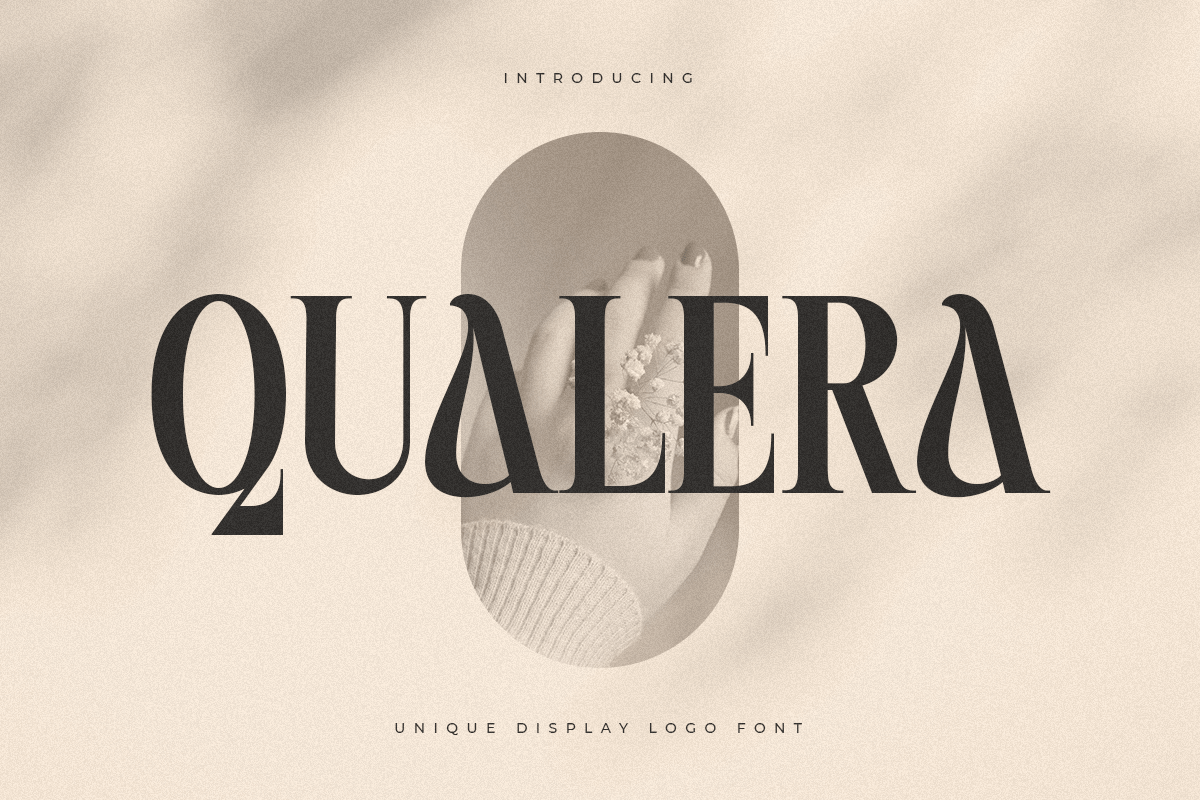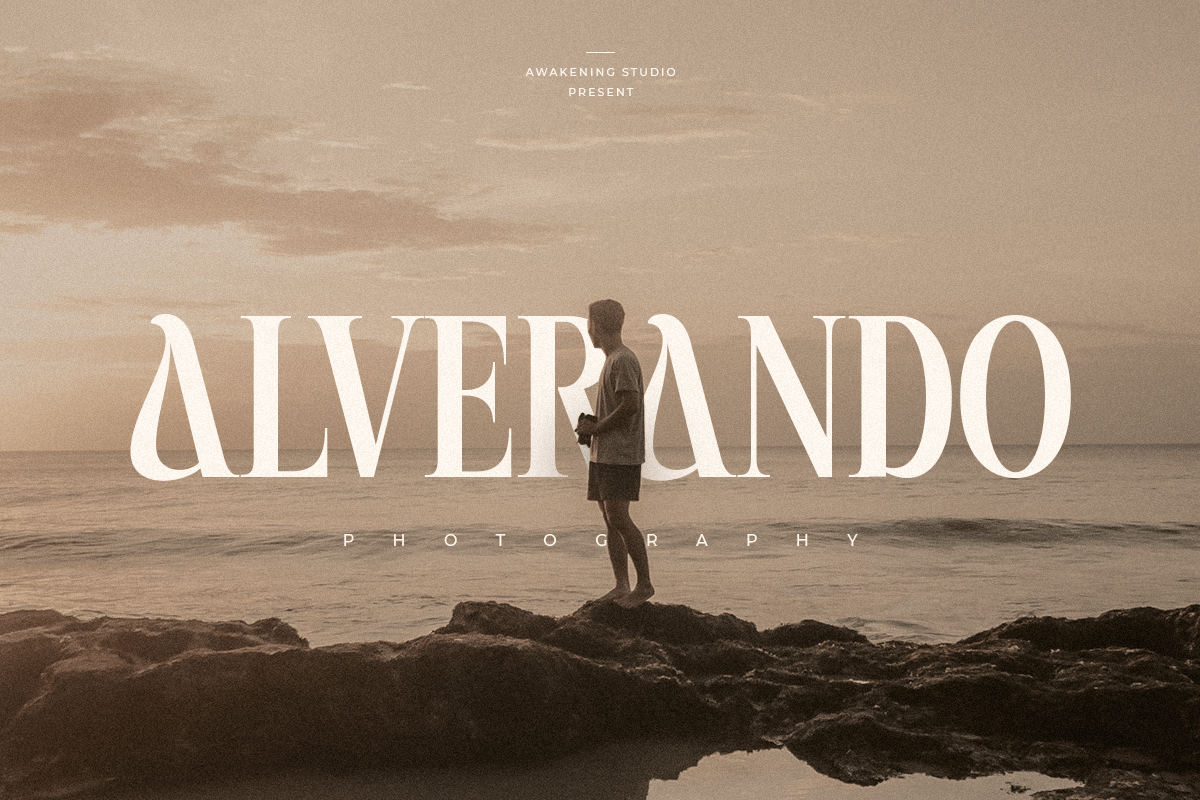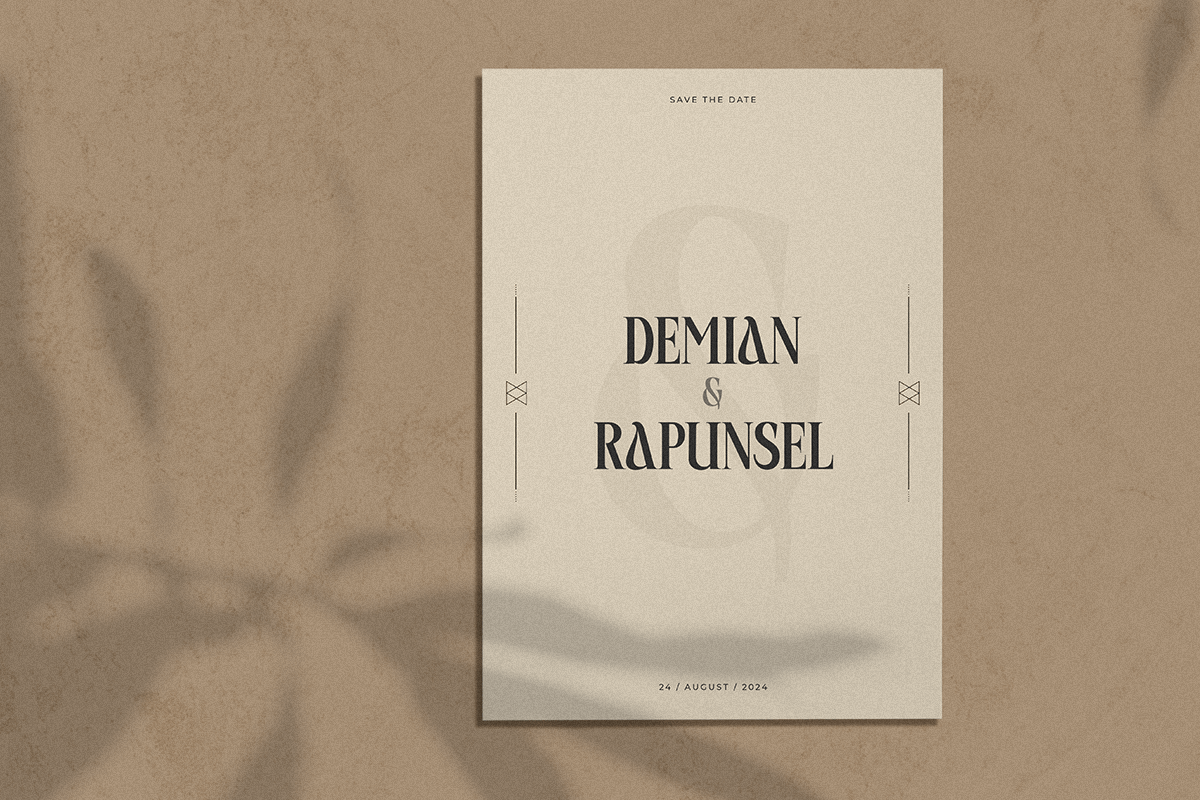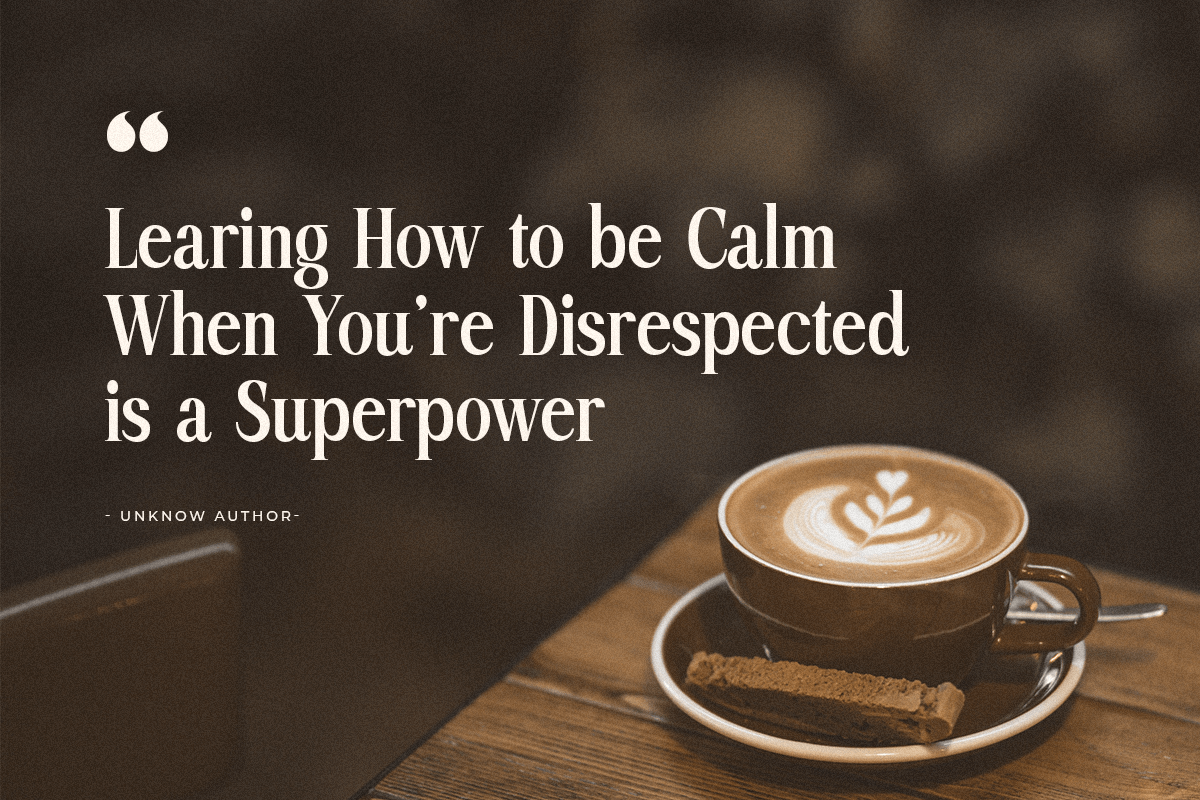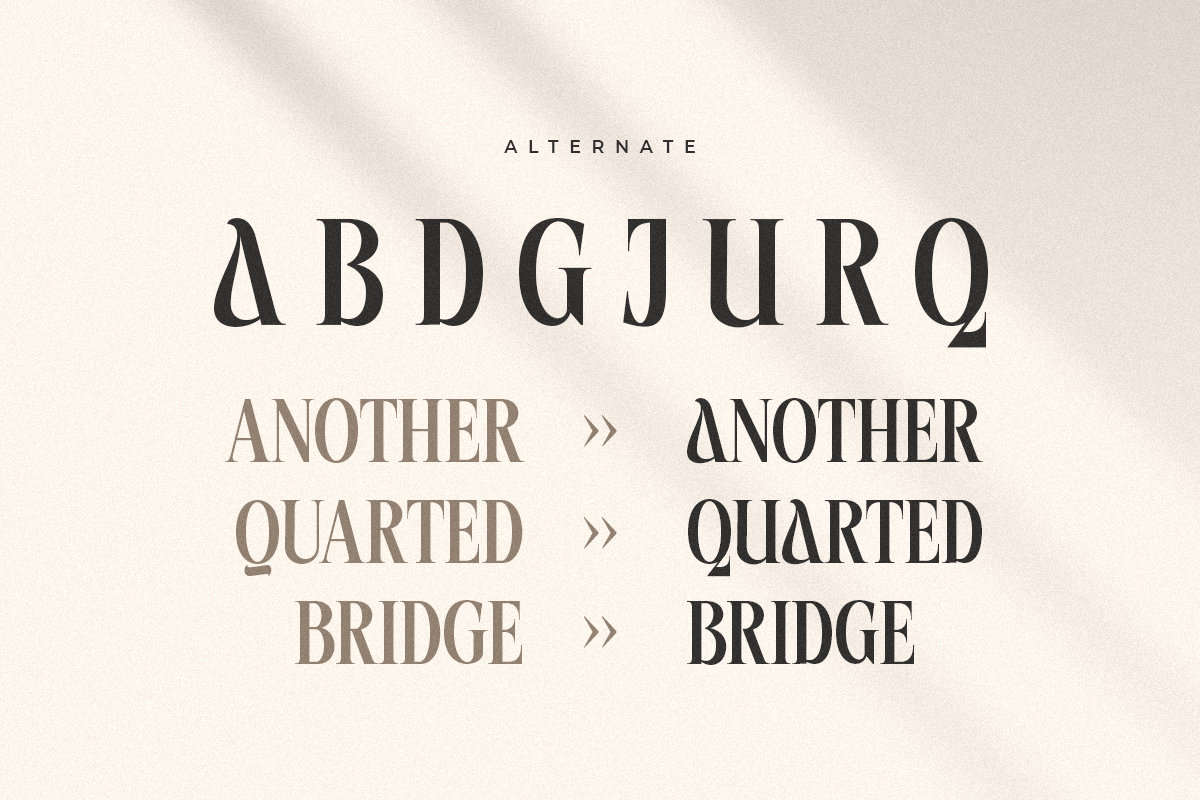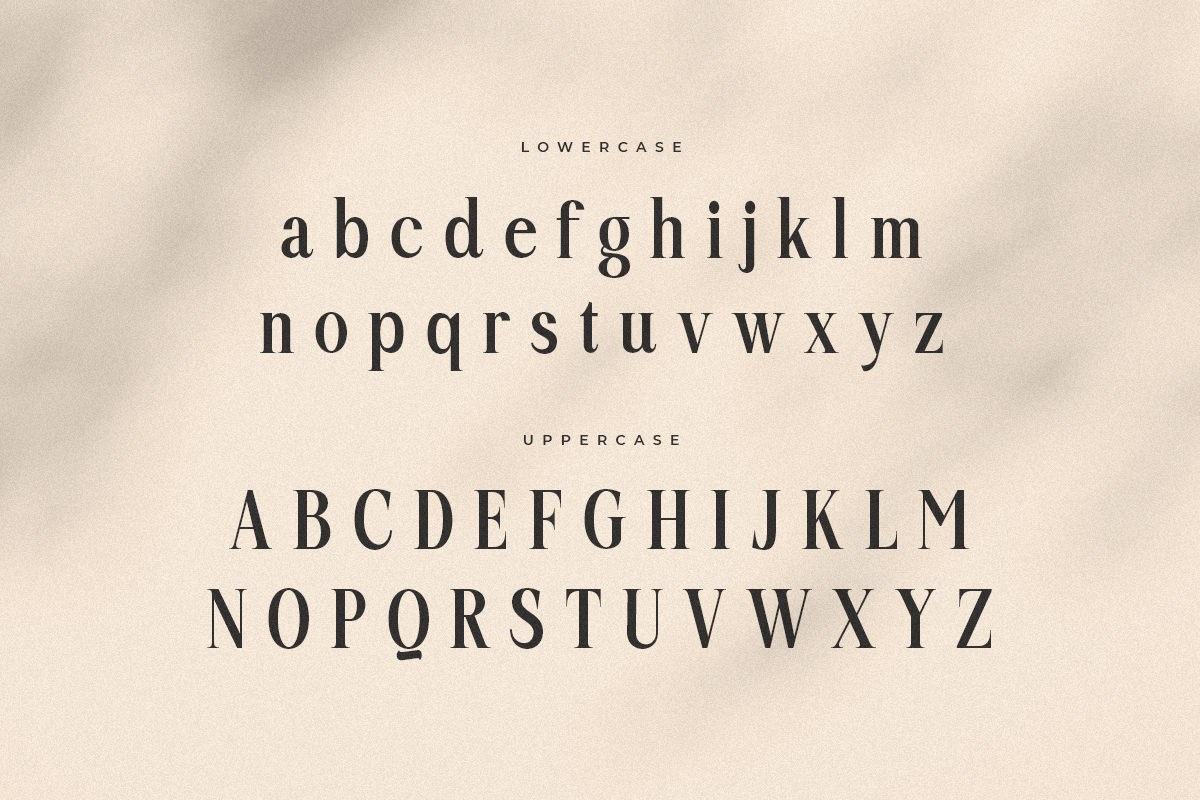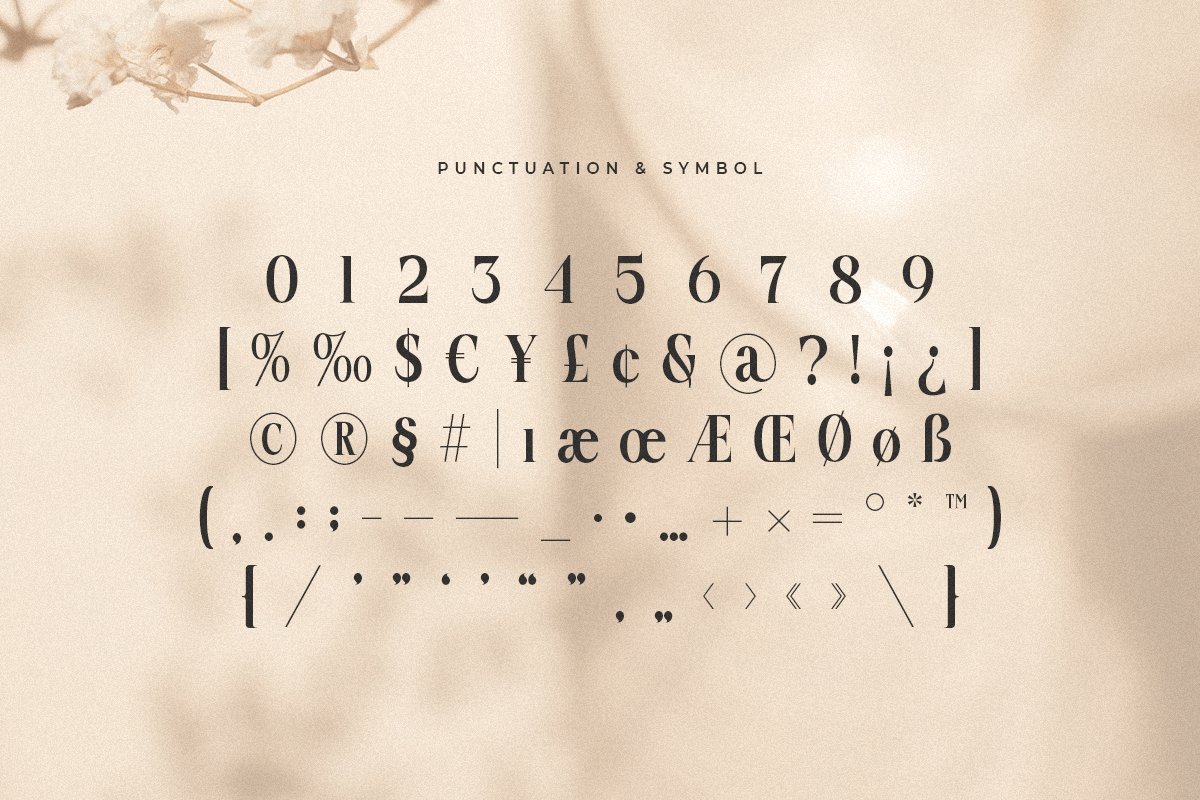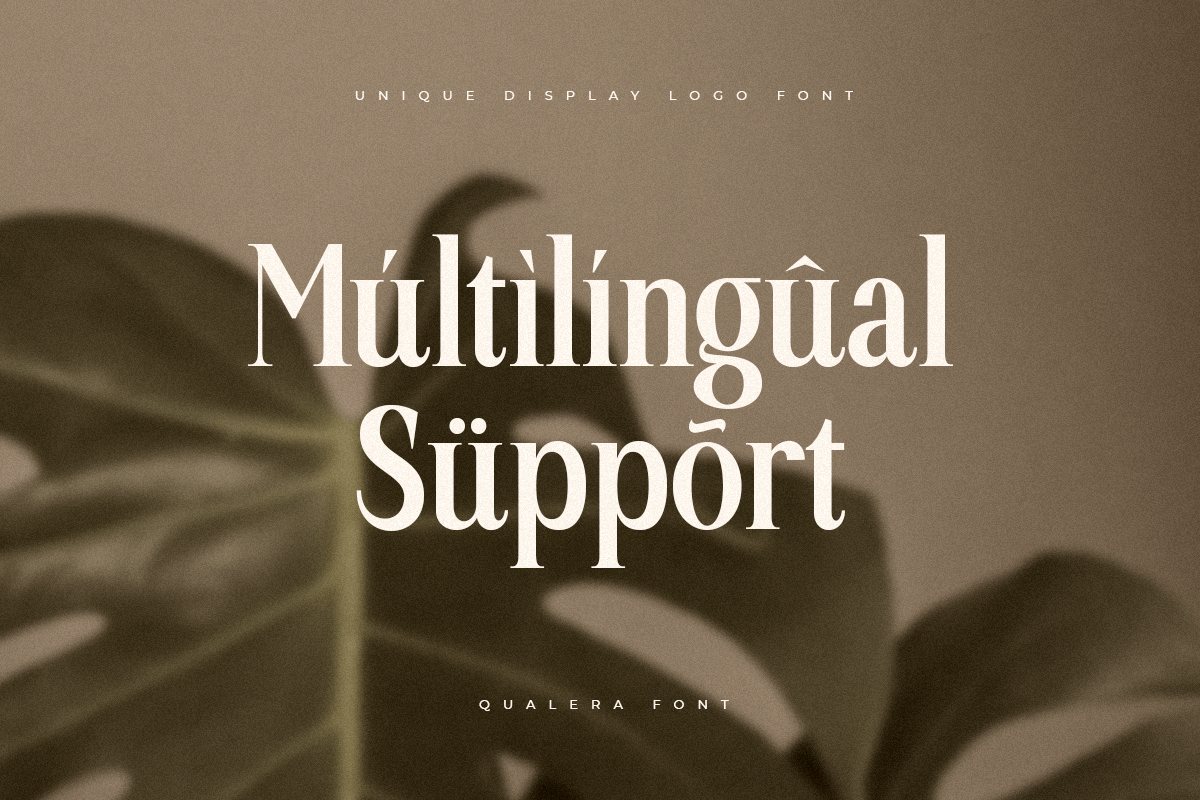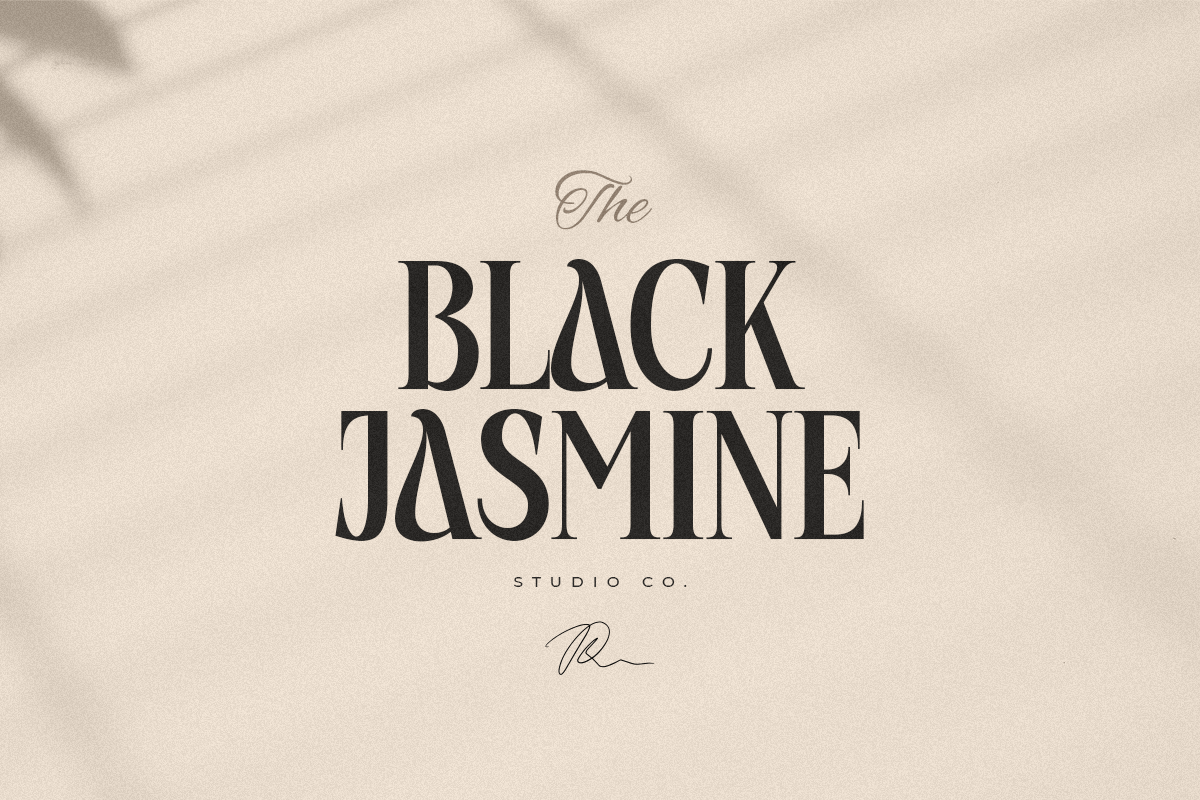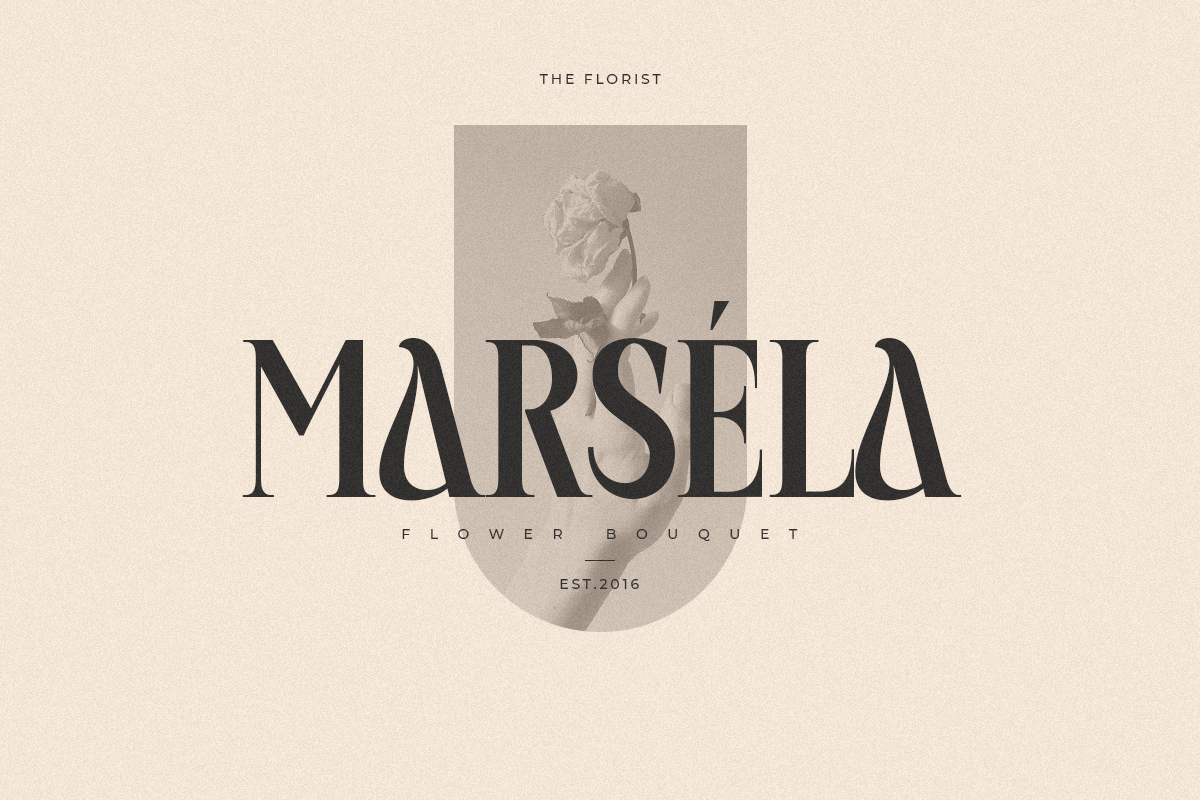
Qualera
Qualera is an Unique Display Logo Font is a Modern Display font for Luxury, Elegant, and Beauty Logo and Branding needs, with Cool style touch, font that you can combine to get any variations and unique shapes easily just in seconds with choose alternates of them. It is a serif display font with moderate contrast that perfect for branding projects, logo, wedding designs, social media posts, advertisements, product packaging, product designs, label, photography, watermark, invitation, stationery, and any projects, it makes with a high level of legibility.